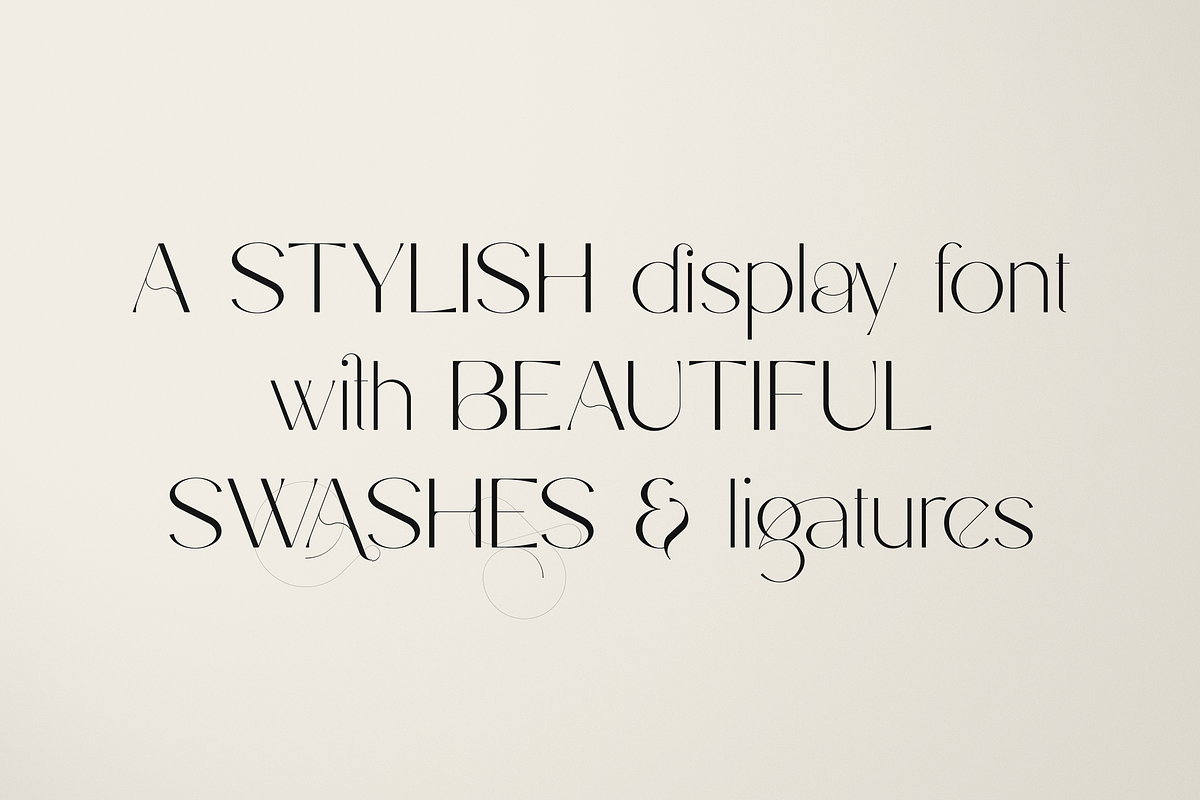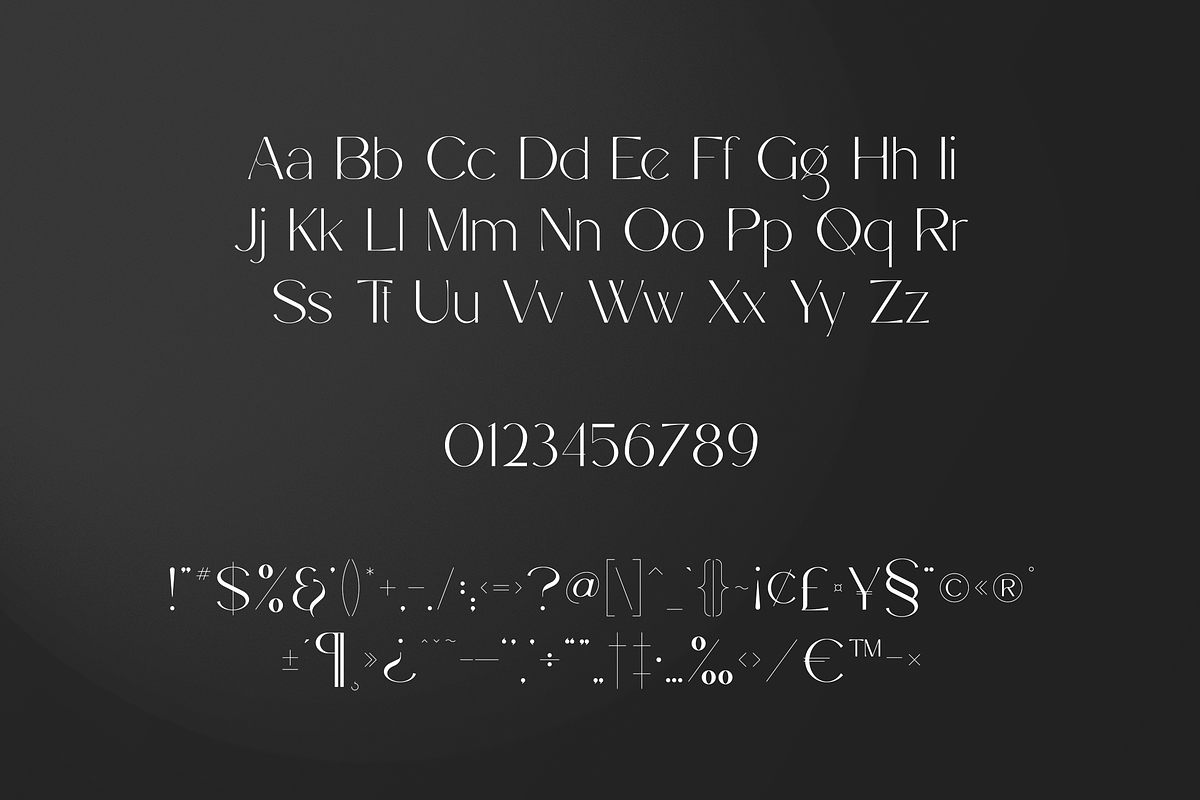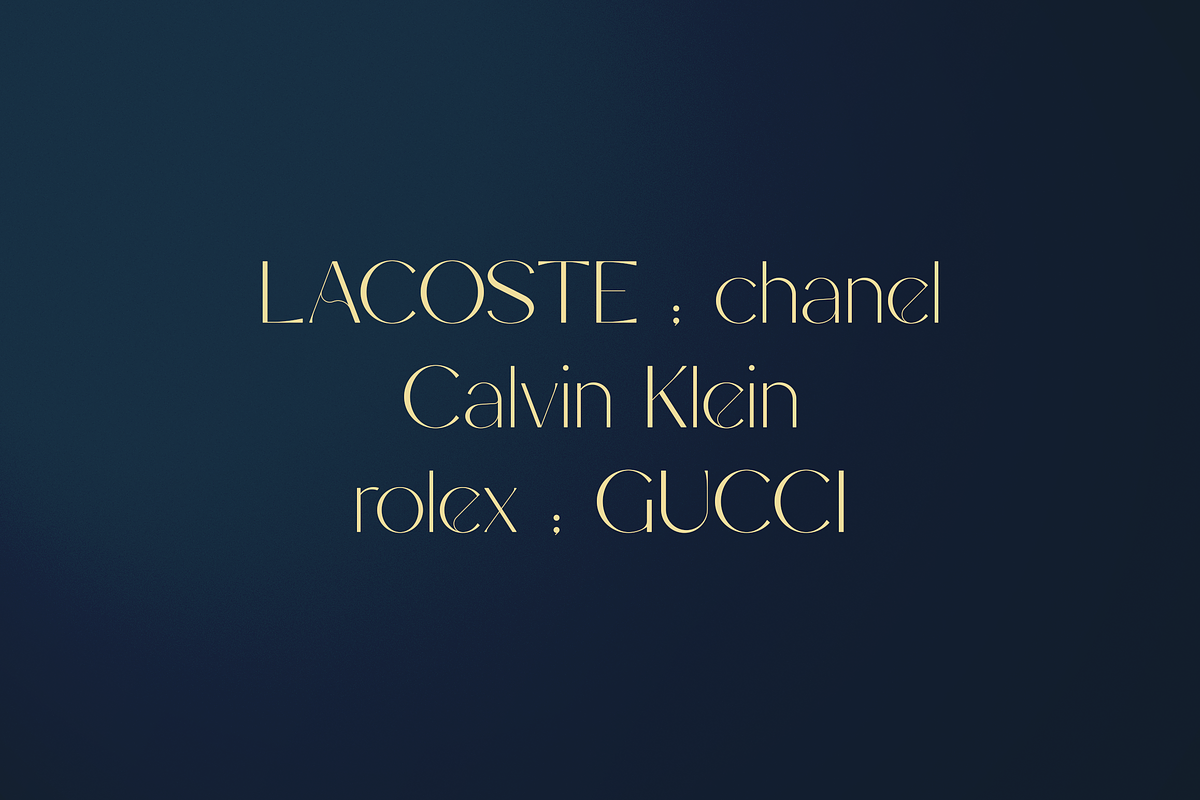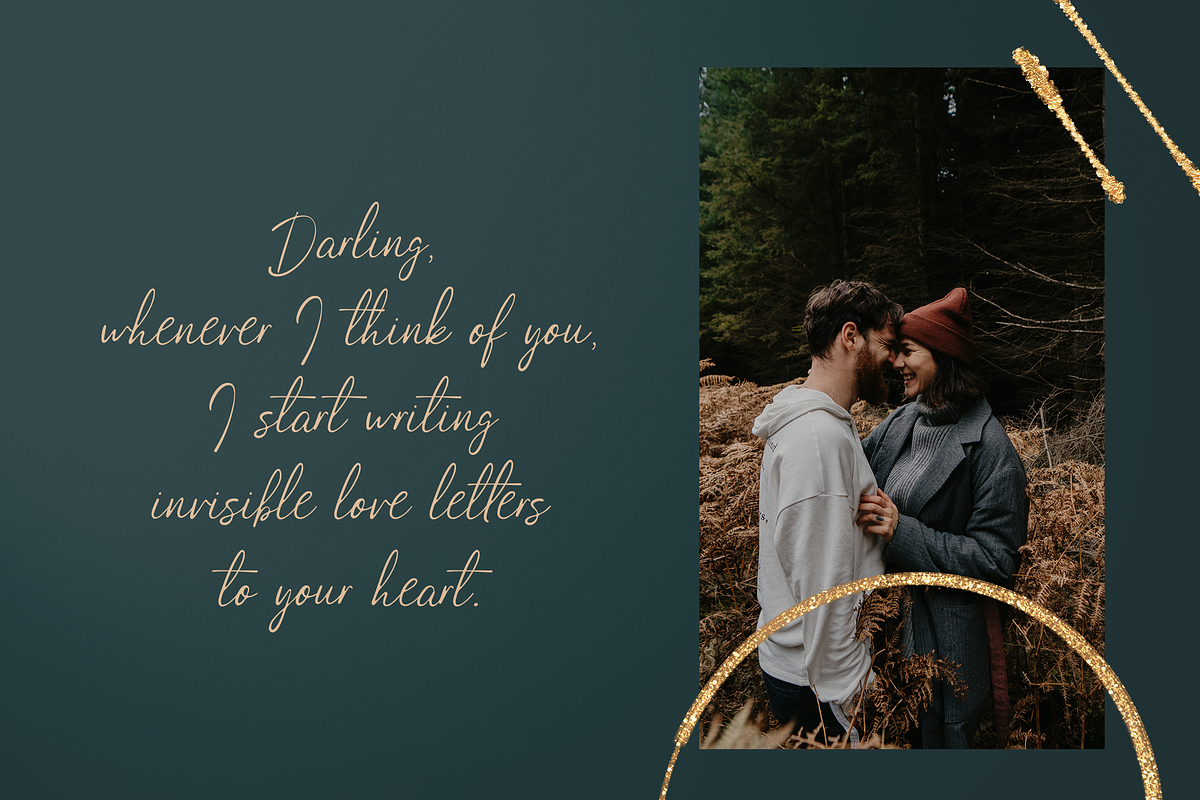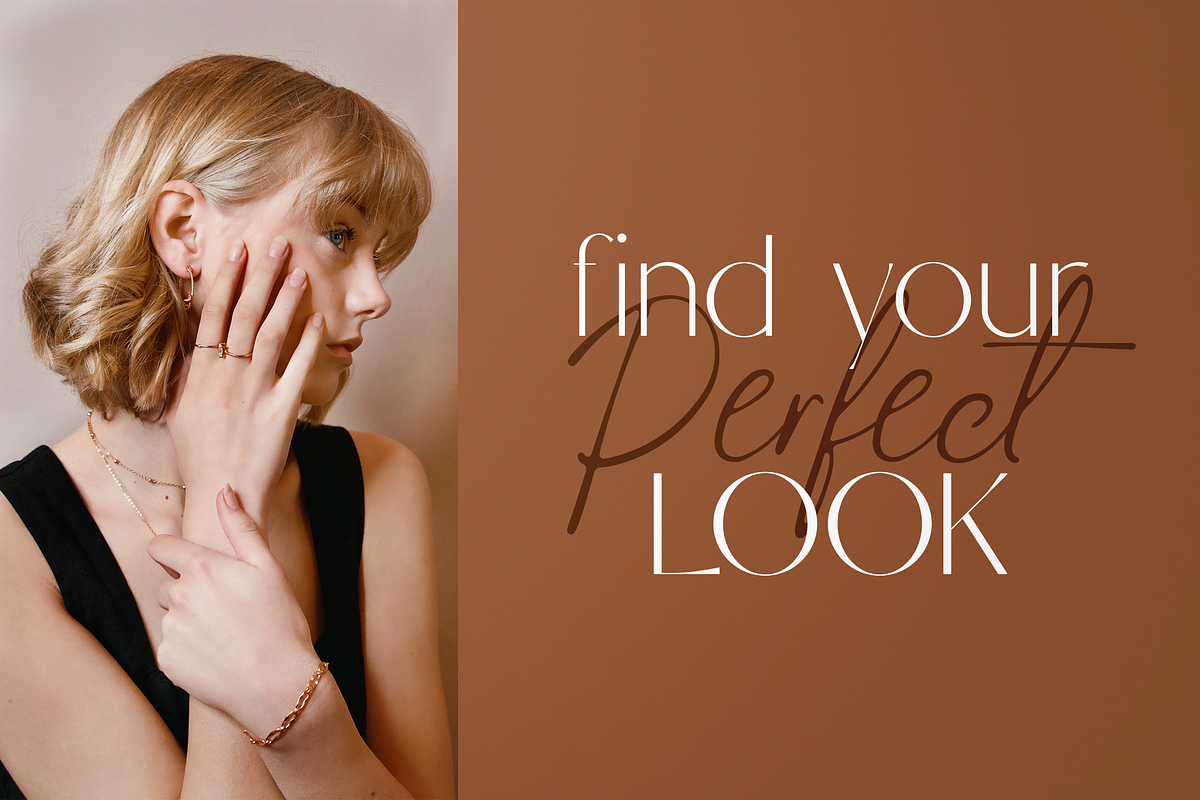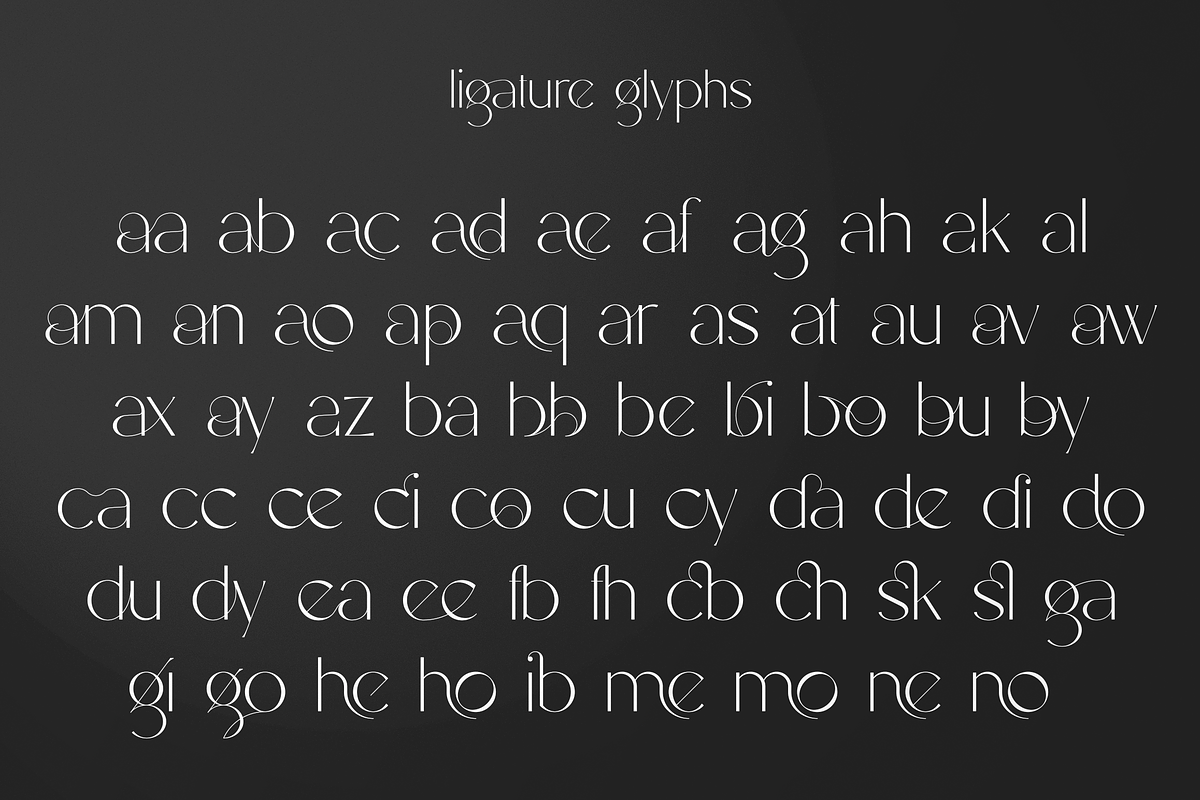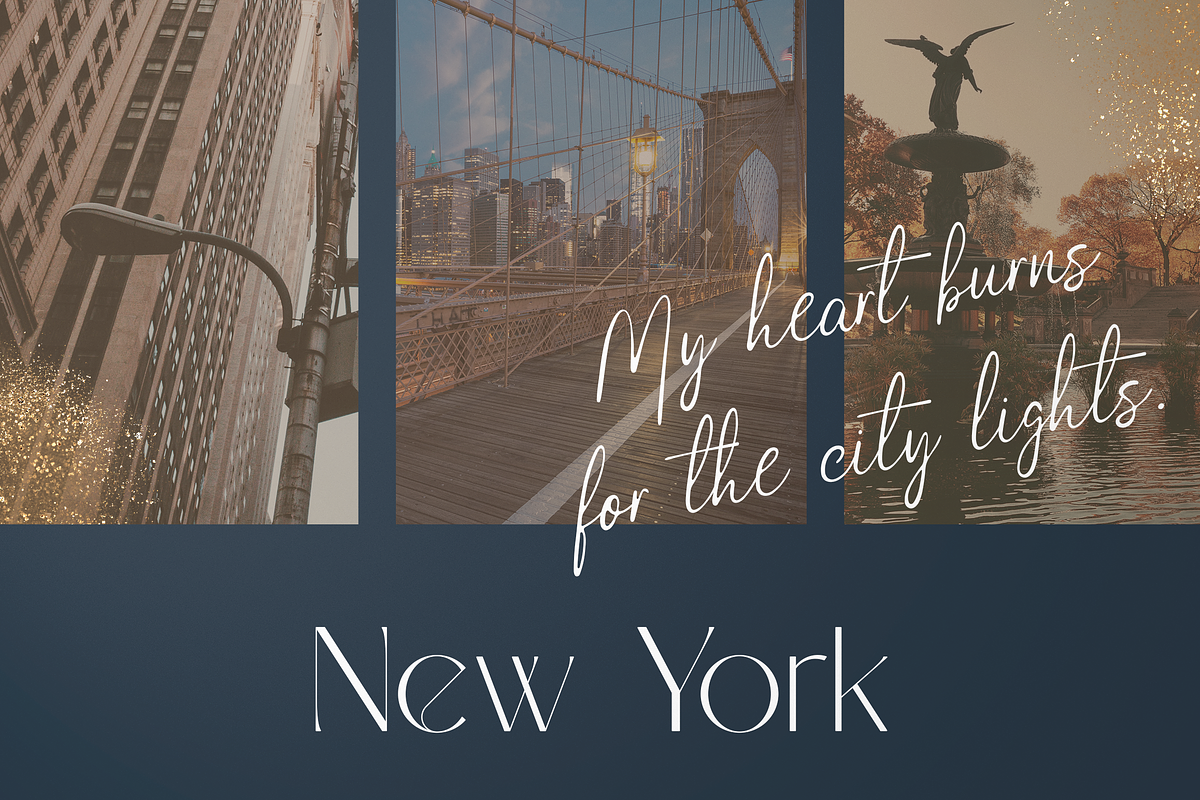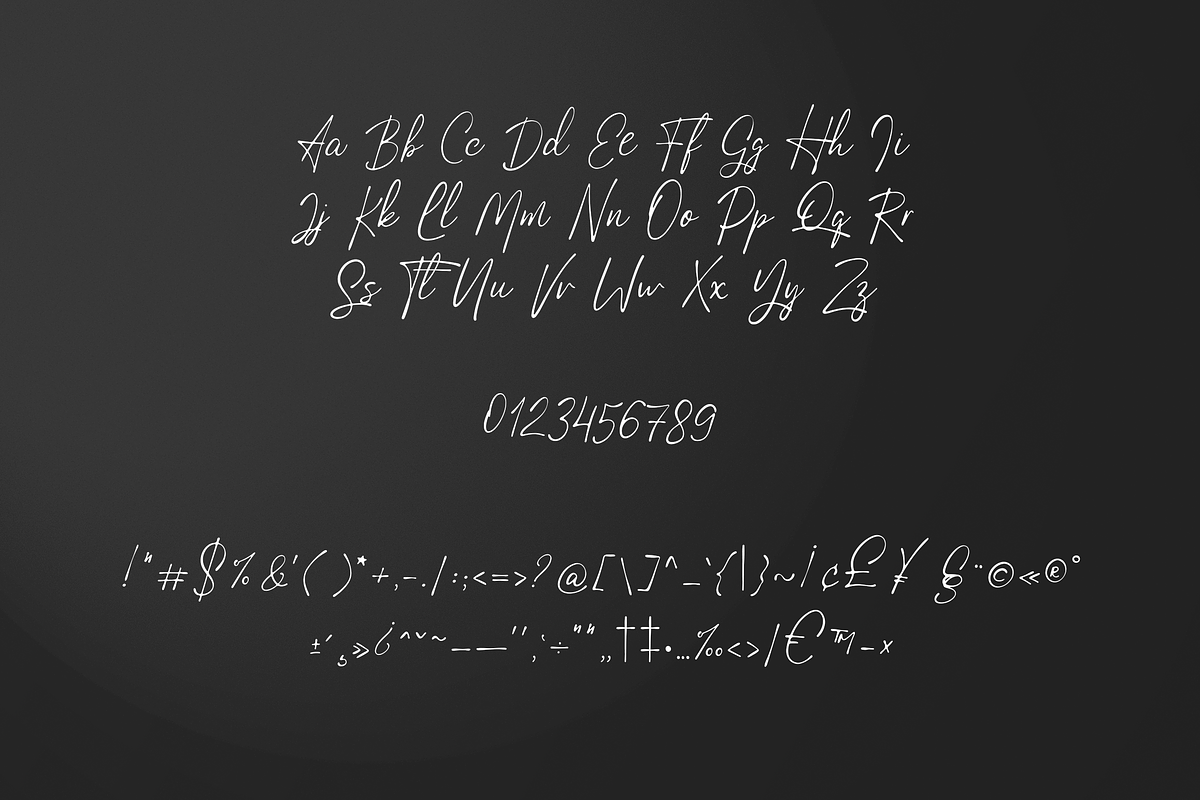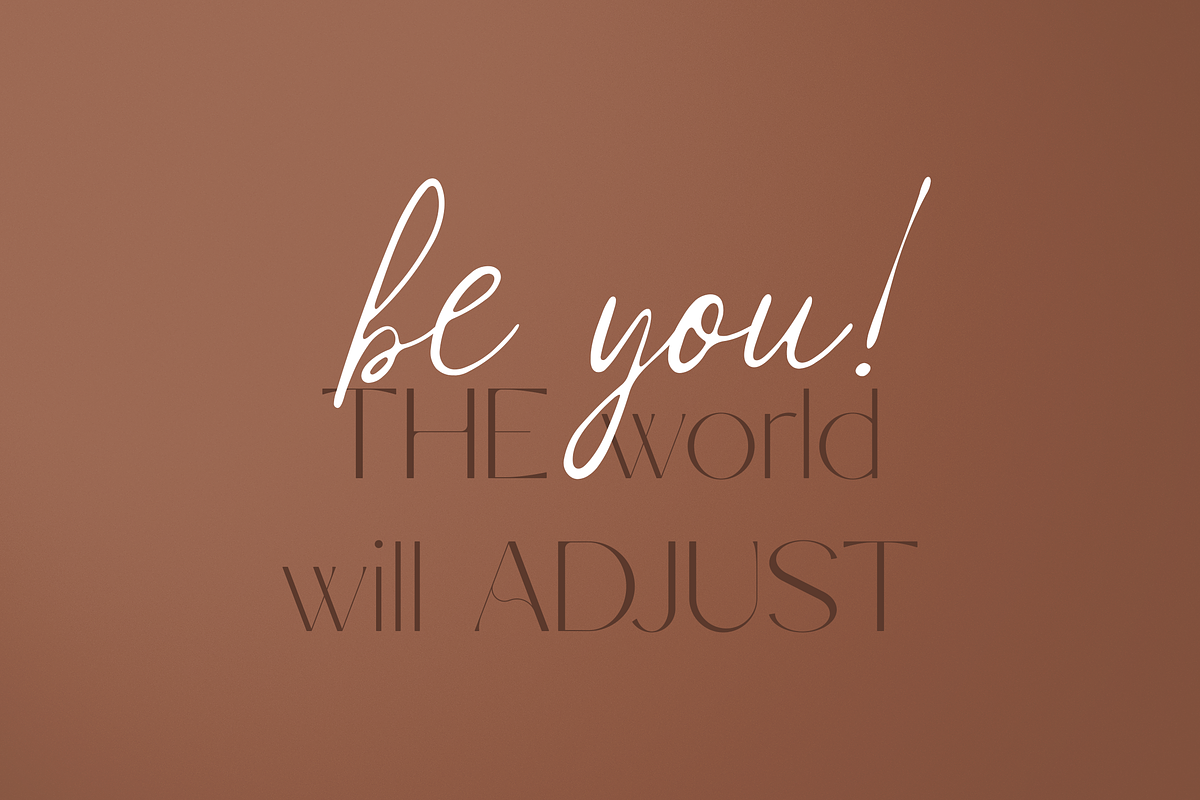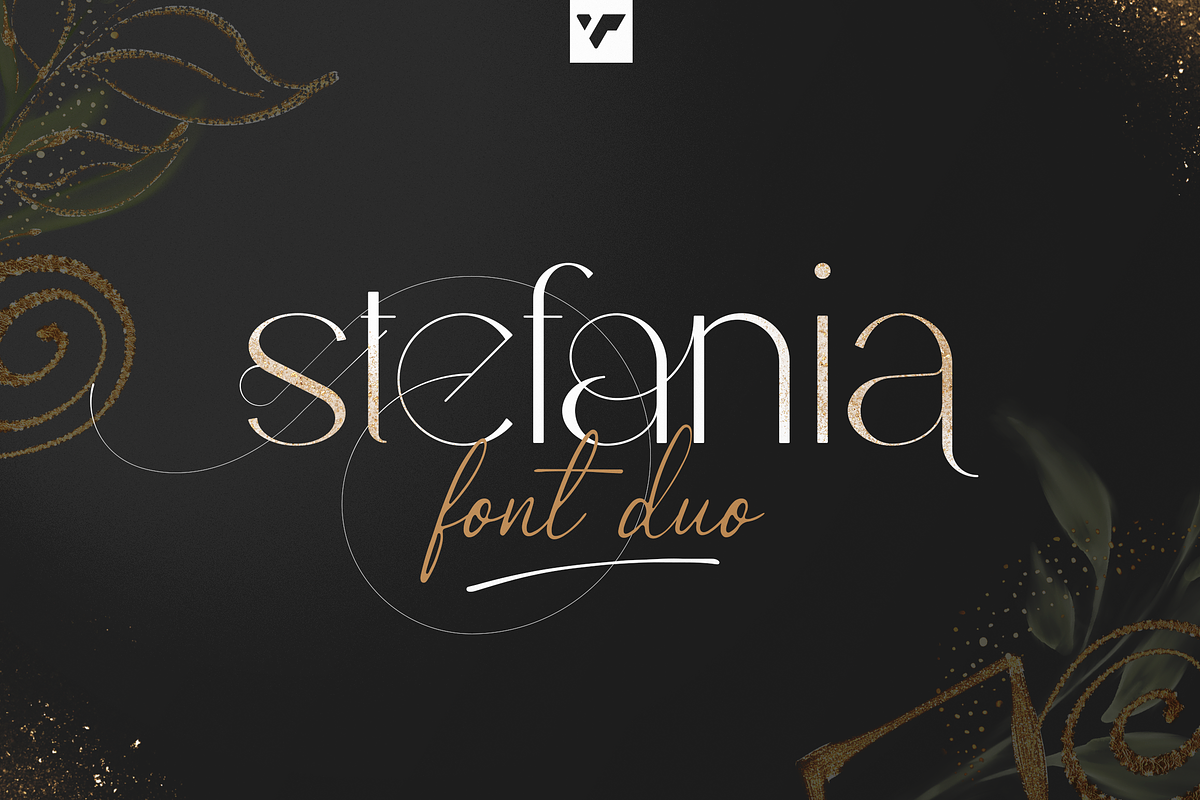
Stefania - font duo + more and more
Introducing Stefania - font duo (latin and Cyrillic) + swashes, botanical and abstract elements
Stefania is casual and creative font duo loaded with 95 languages support, alternate and ligature glyphs, natural, abstract elements, arrangements and backgrounds to make you typography truly unique!
- Uppercase, lowercase, numeral, punctuation & Symbol
- Regular and script
- ligature glyphs
- alternates
- Multilingual support - 95 languages
- Cyrillic support